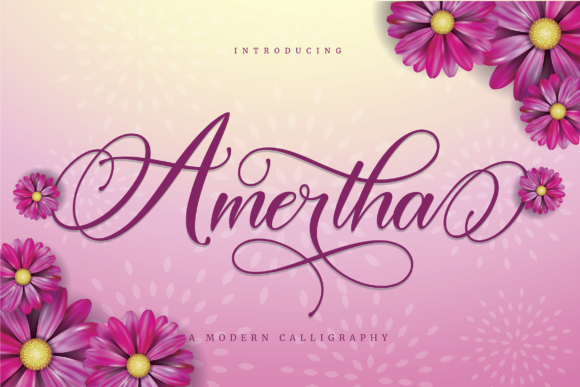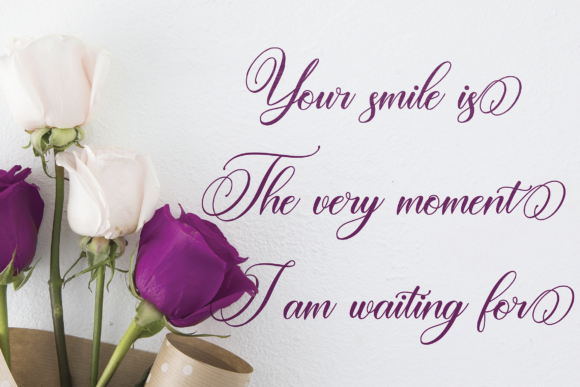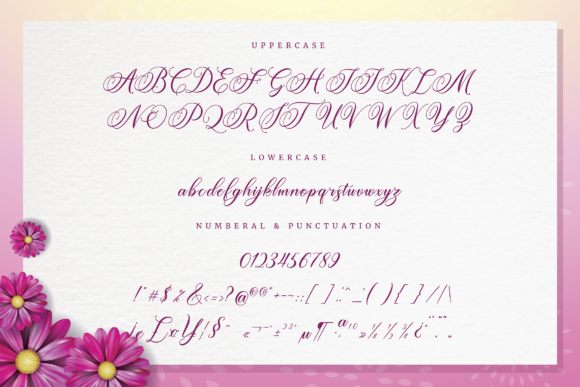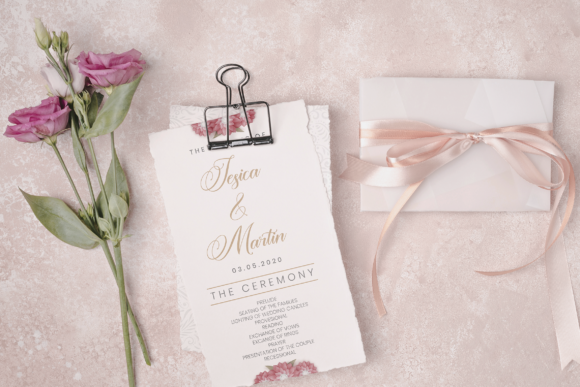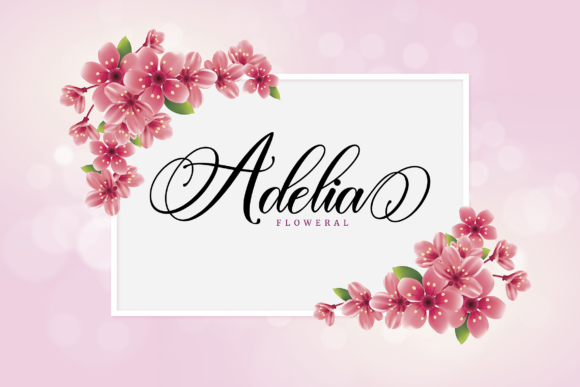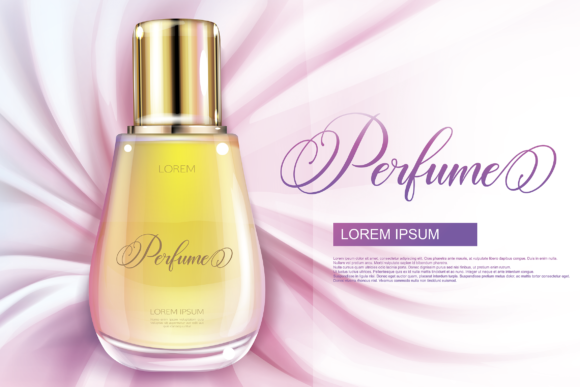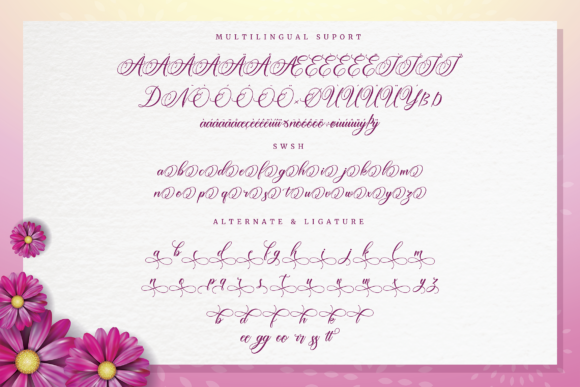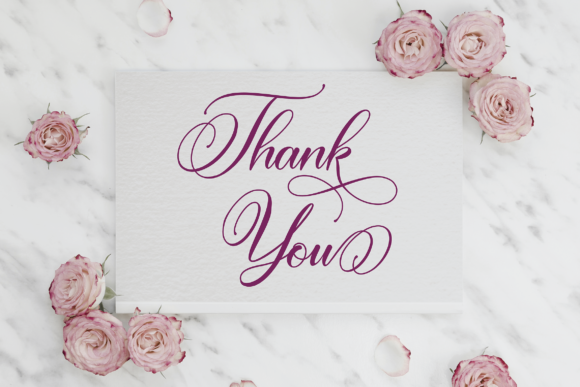
Amertha Font
About Amertha Font
Amertha is a lovely and flowing handwritten font. It looks wonderful on wedding invitations, thank you cards, quotes, greeting cards, logos, business cards and every other design which needs a handwritten touch.